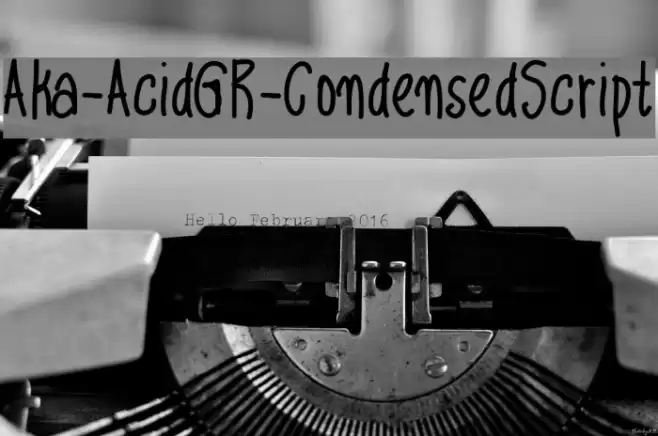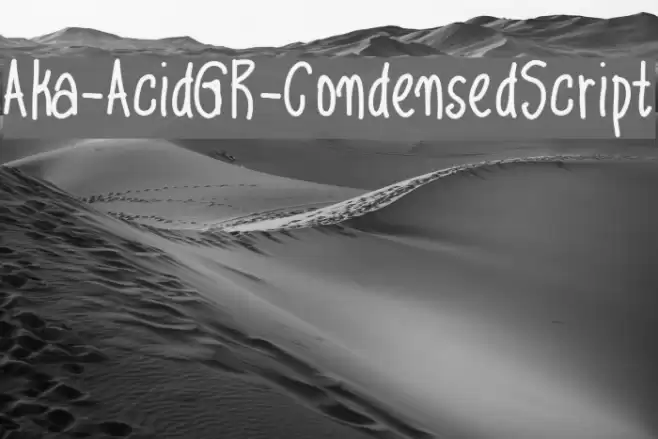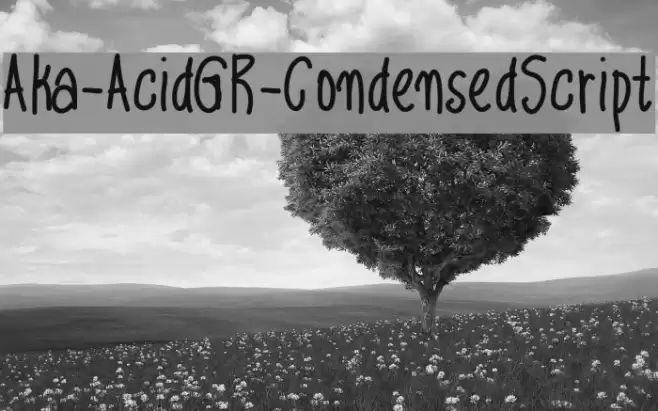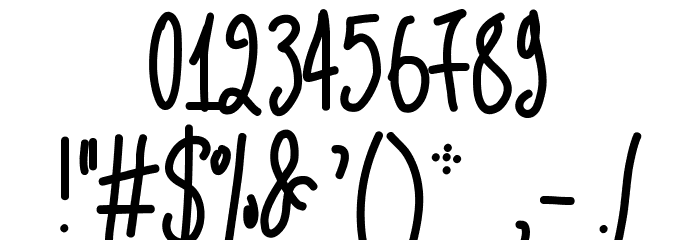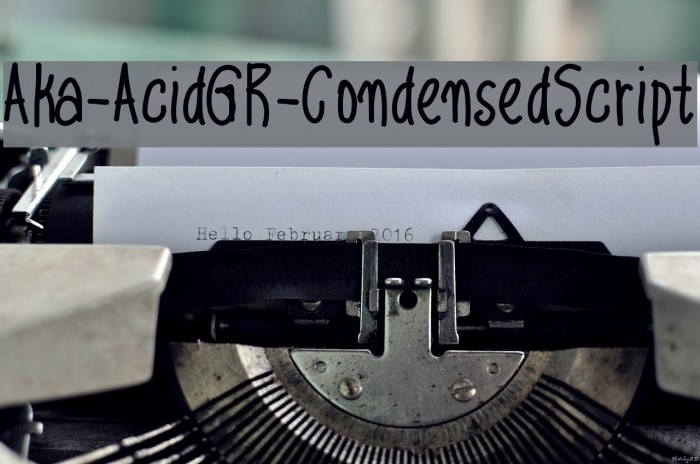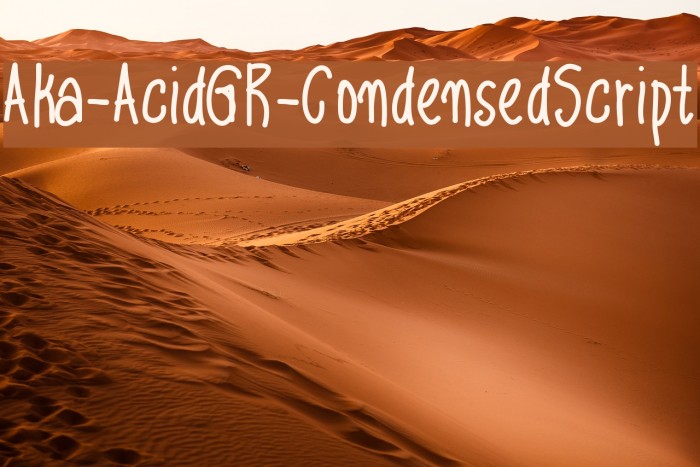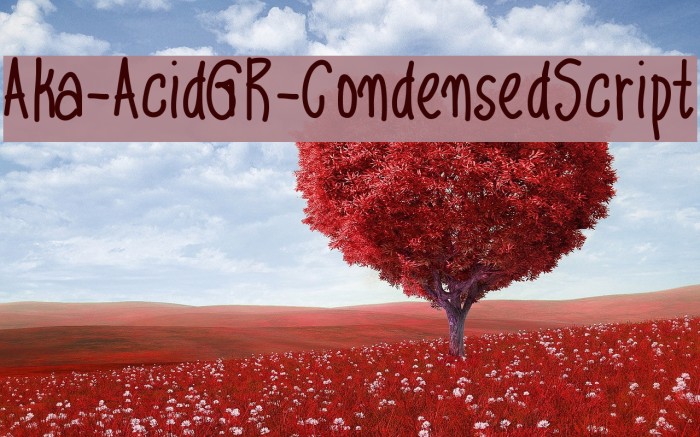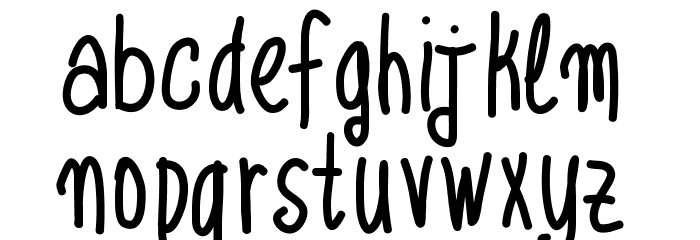
Aka-AcidGR-CondensedScript Font
Aka-AcidGR-CondensedScript Description
This font features a playful and energetic script style with a condensed structure. The letters are hand-drawn, giving them a casual and informal appearance. Each character has a unique flair, with varying stroke widths that add a dynamic quality to the text. The uppercase letters are bold and prominent, while the lowercase letters maintain a consistent flow, enhancing readability. The numerals and special characters are crafted to match the overall aesthetic, making them suitable for creative and artistic projects. The font's condensed nature allows for efficient use of space, making it ideal for headlines and titles where impact is essential.
A playful, condensed script font with a hand-drawn, energetic style from Uncategorized fonts.
- Proposed Projects: Ideal for greeting cards, posters, branding materials, and social media graphics.